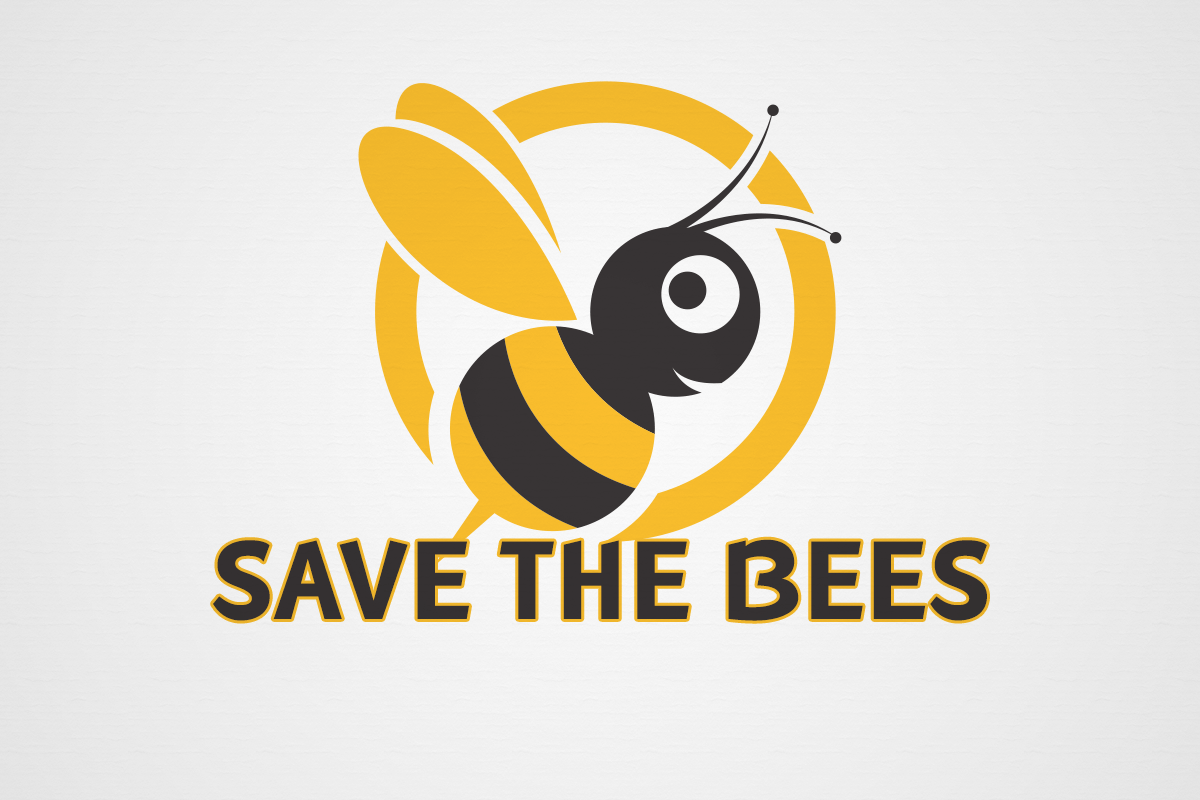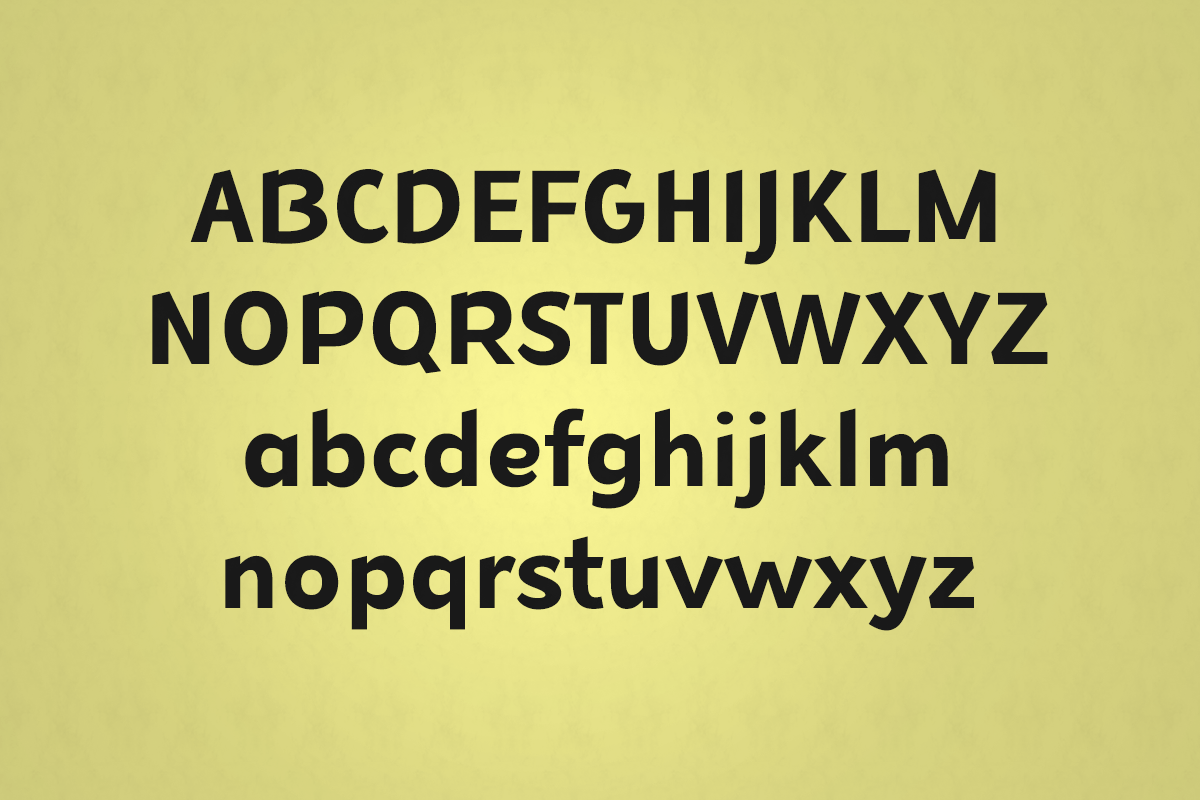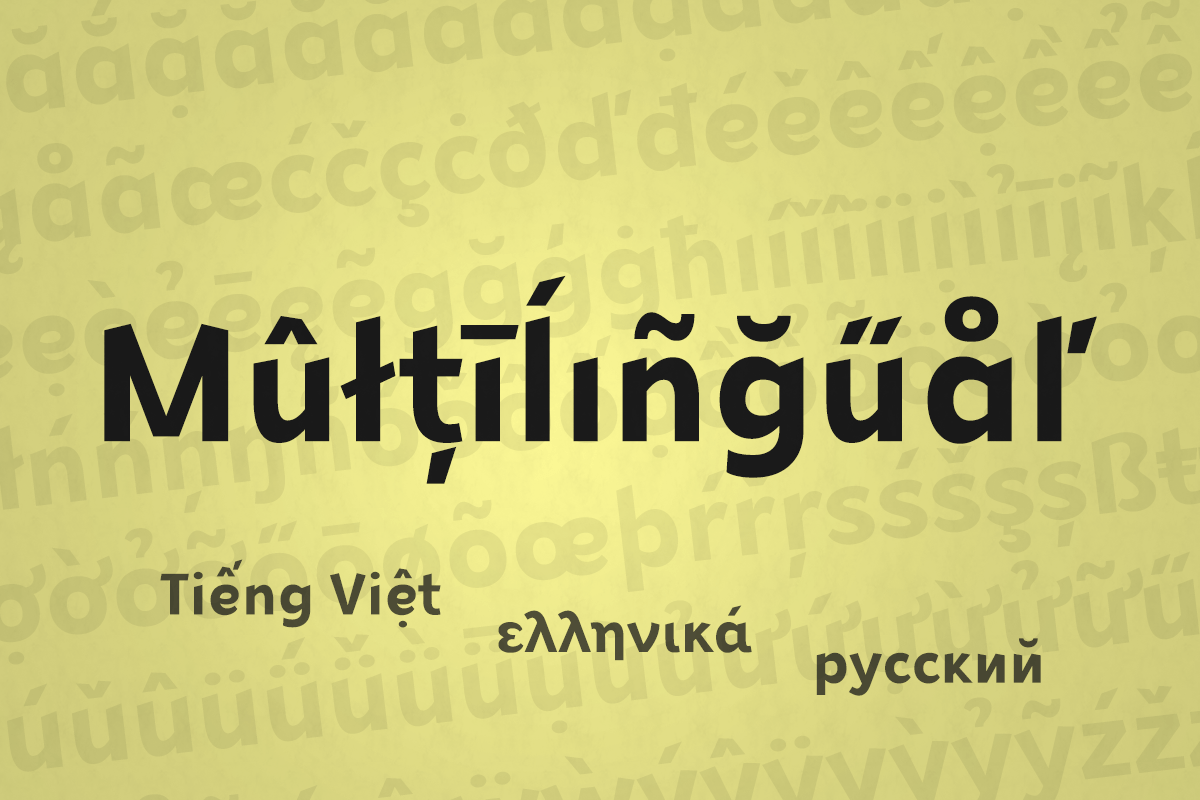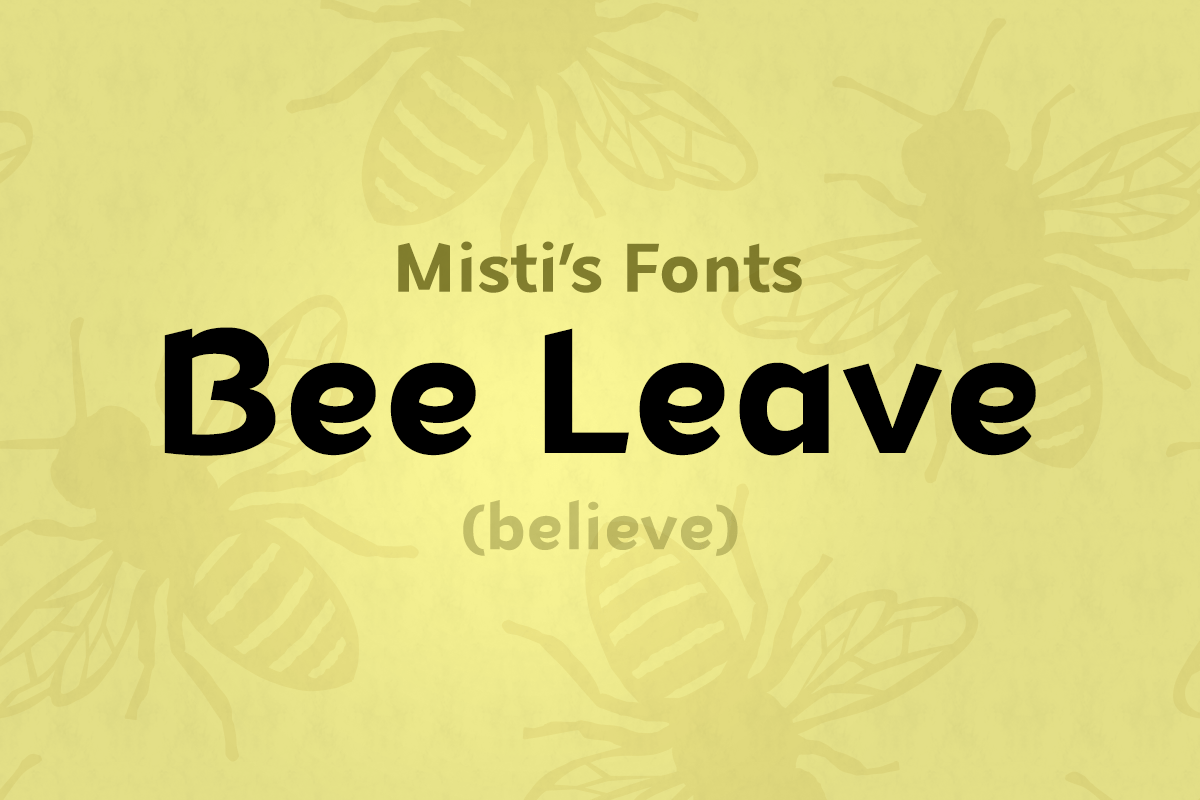
Bee Leave
Bee Leave is a strong display font with a modern look. It will elevate a wide range of design projects to the highest level, be it branding, headings, wedding designs, invitations, signatures, logos, labels, and much more!